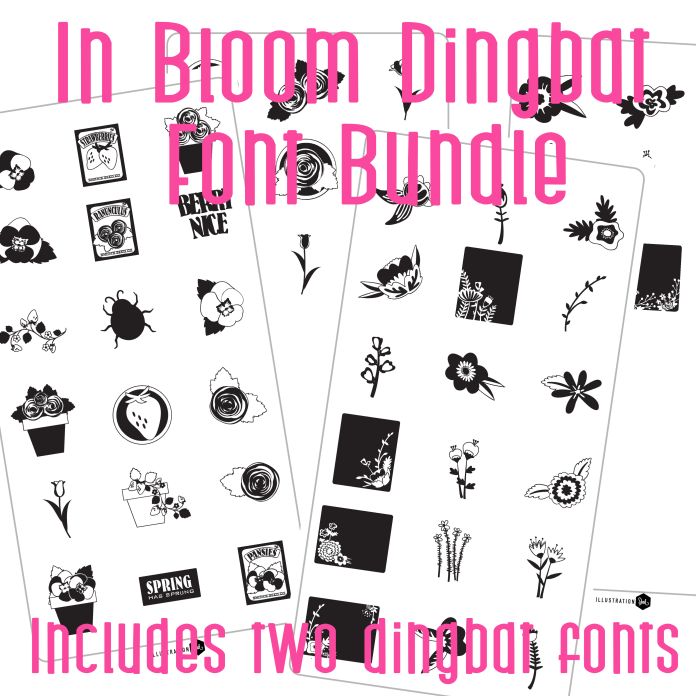
This bundle includes two dingbat fonts for one low price! With two dingbats you get 52 total images of flowers, insects, blooms, journaling and more. Perfect for crafts, gifts, decor, classrooms, planner stickers, scrap book pages and more!